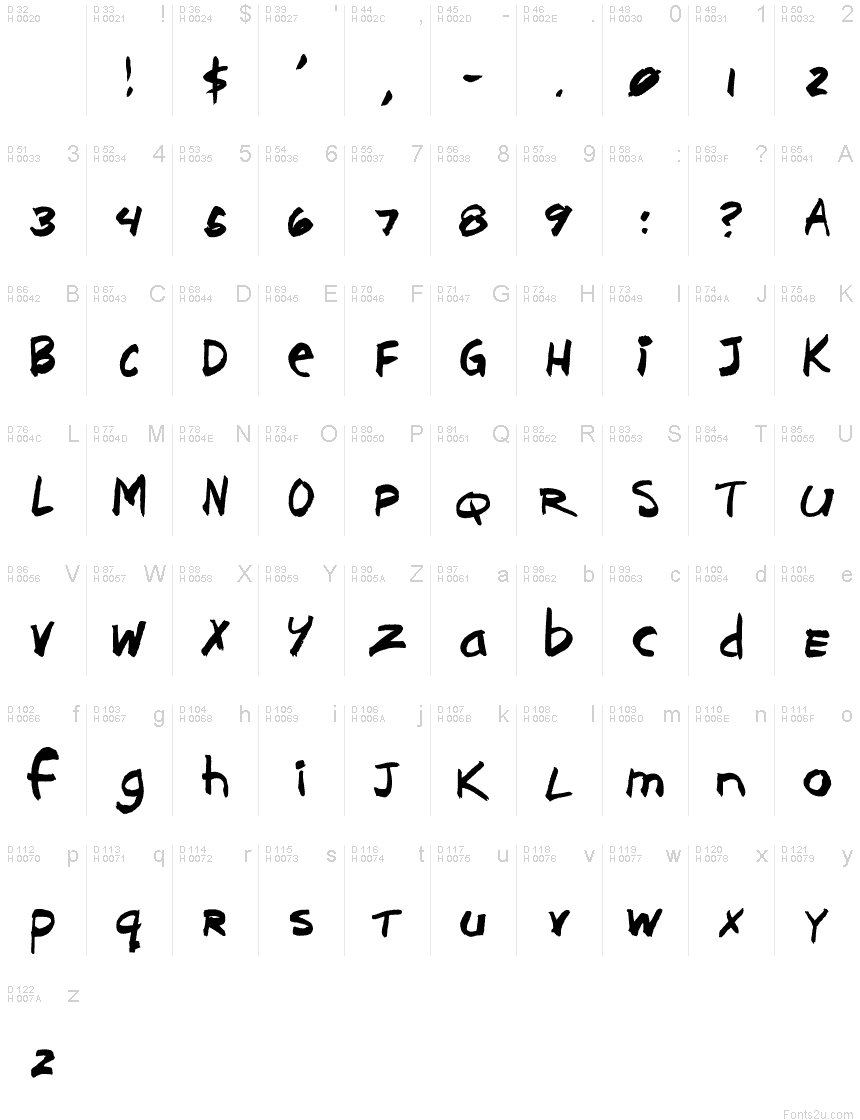
Brushcut
Brushcut font by John Martz, Robotic Attack Fonts, is a free brush typeface with the punchy swagger of hand-painted signage. The letters look as if they’ve been hacked out with a loaded, slightly frayed brush—thick strokes, blunt corners, and just enough wobble to feel human. It’s bold and inky without turning messy, so you get that raw, DIY attitude while the word shapes stay easy to read at a glance.
Using Brushcut, you can give gig posters, comic titles, skateboard graphics, zines, YouTube thumbnails, and snack or streetwear packaging a loud, energetic headline voice. This free font shines when it’s big and unapologetic, where the chunky forms and uneven rhythm can really breathe. Pair Brushcut with a clean condensed sans serif for supporting text to let its rough-edged personality take center stage.